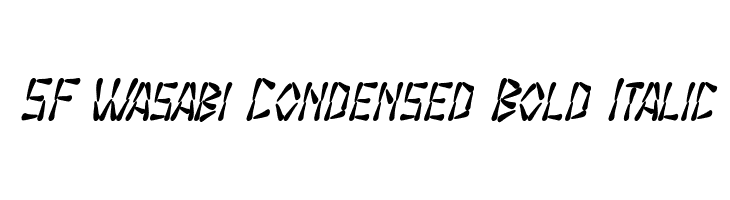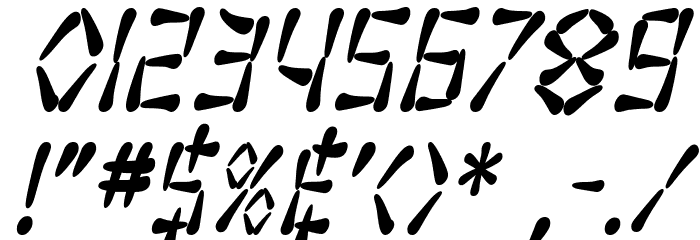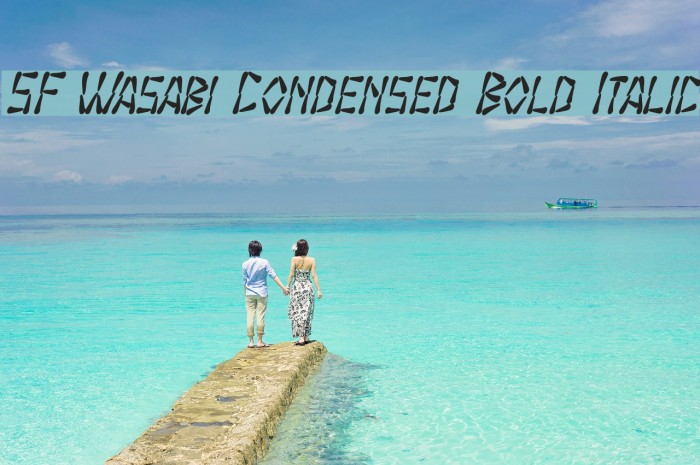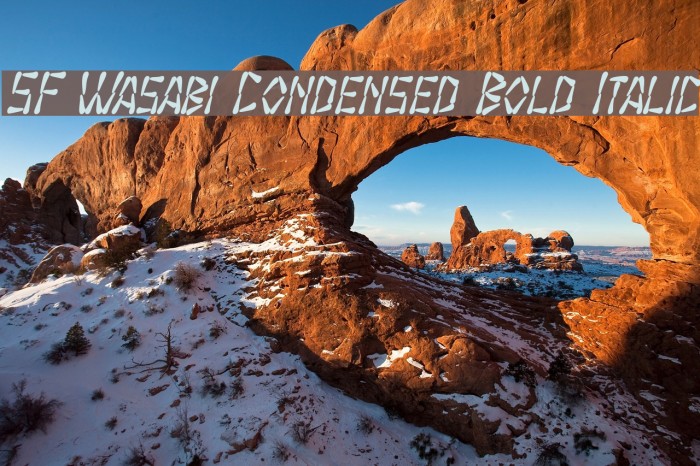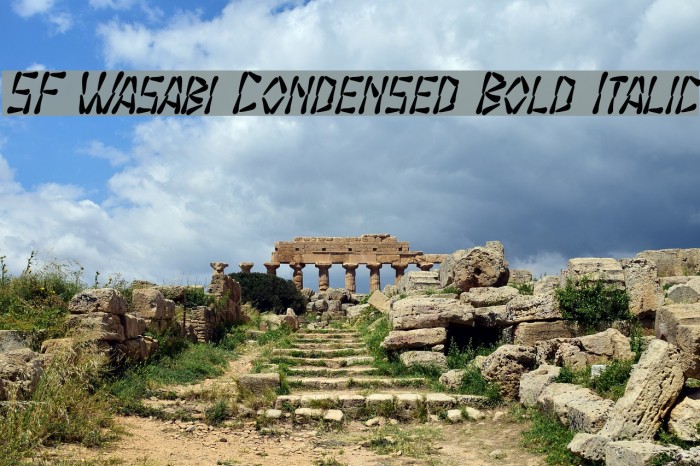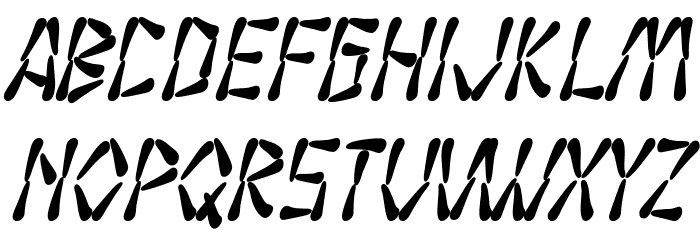
SF Wasabi Condensed Bold Italic Font
This font features a bold and italicized style with a condensed width, giving it a dynamic and energetic appearance. The characters are crafted with a brush-like stroke, adding a sense of movement and fluidity. The uppercase and lowercase letters maintain a consistent slant, enhancing the italic effect. The numbers and special characters follow the same stylistic approach, ensuring uniformity across all glyphs. The font's unique design makes it stand out, with each character exhibiting a playful yet structured form. Its boldness and condensed nature make it suitable for impactful and attention-grabbing text.
A bold, italic, and condensed font with a brush-like, dynamic style.
• Proposed Projects: Ideal for branding, posters, and headlines where a bold and artistic touch is desired.
• Category: Decorative/Display
• Bold: Yes
• Italic: Yes
• Weight: Bold
• Width: Condensed
• Character Spacing: Normal
• Contrast: Medium
• Overall Style: Modern
• Use Case: Headlines, Logos